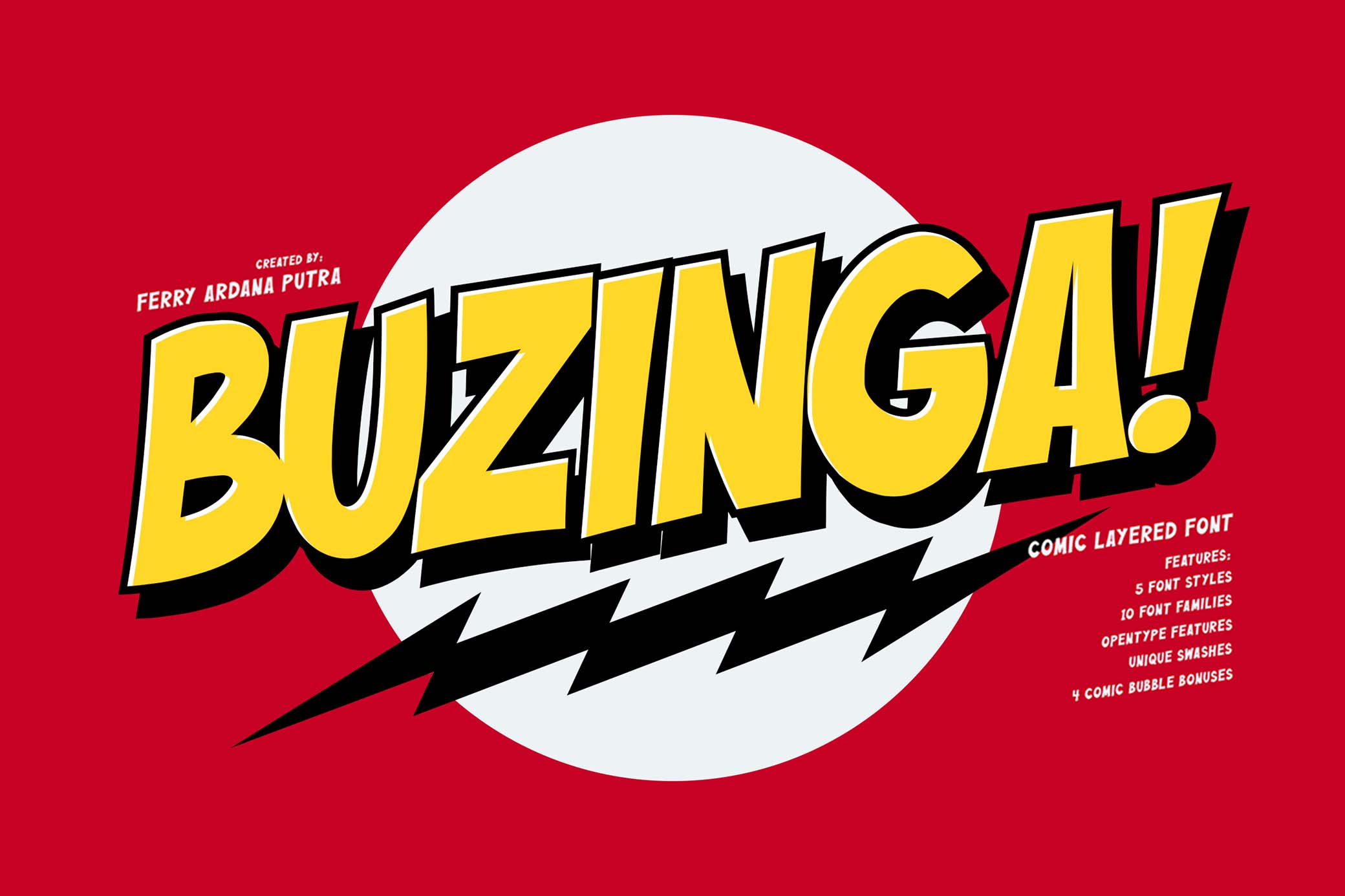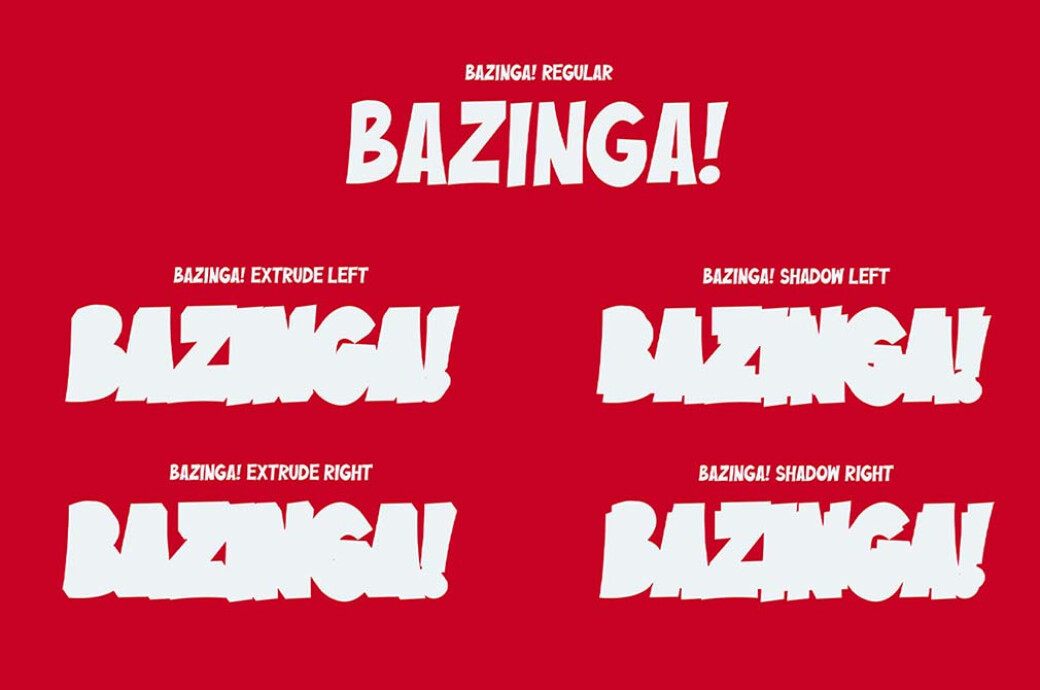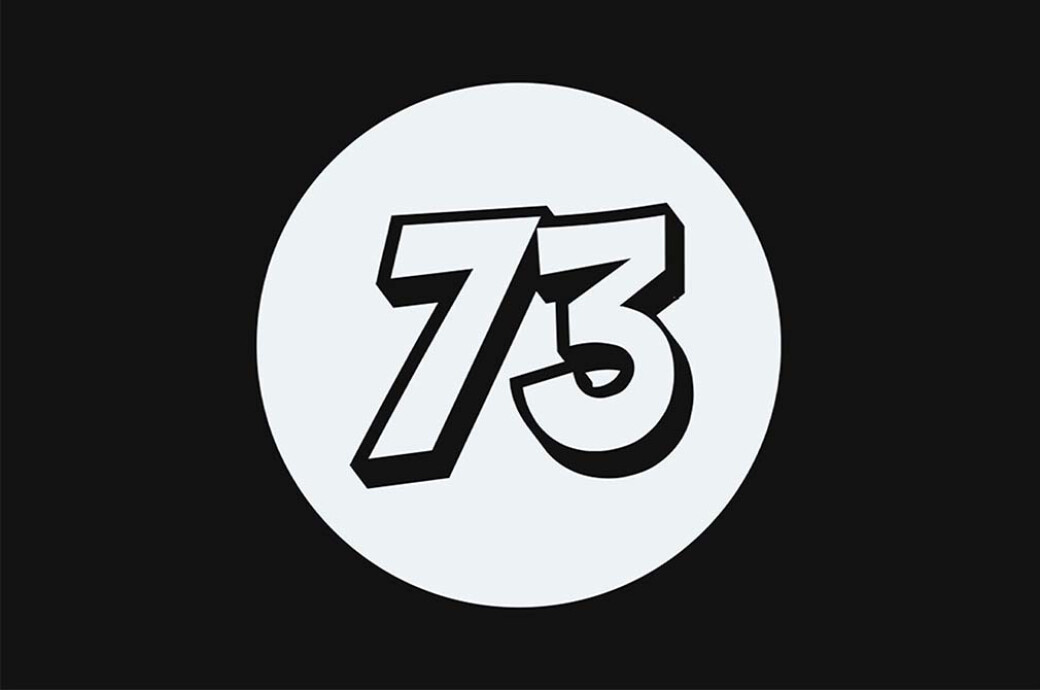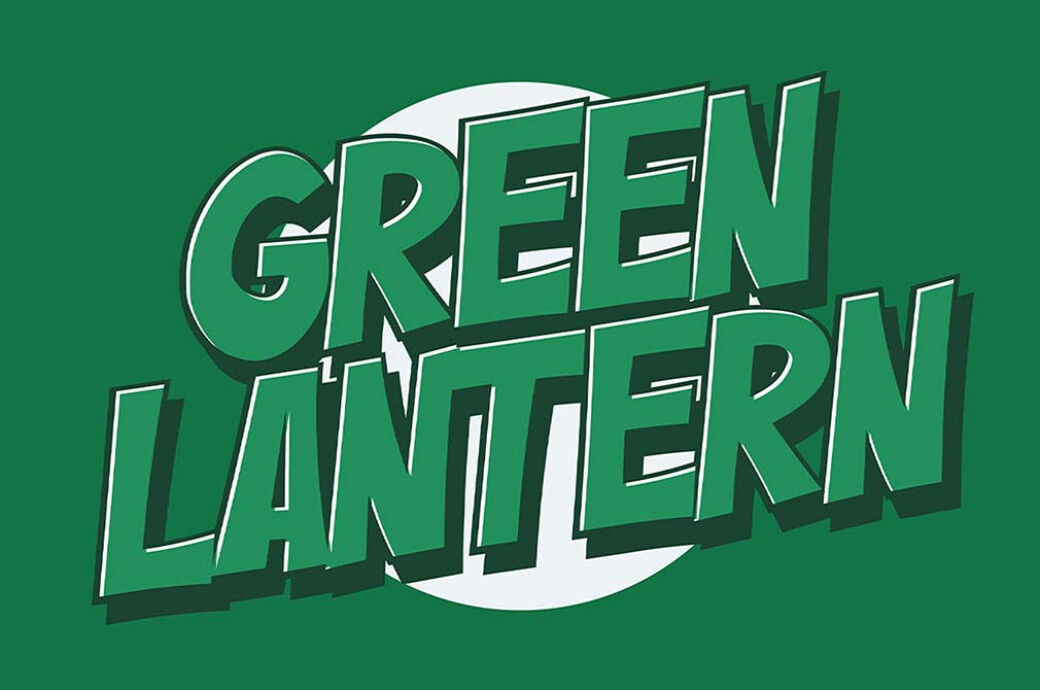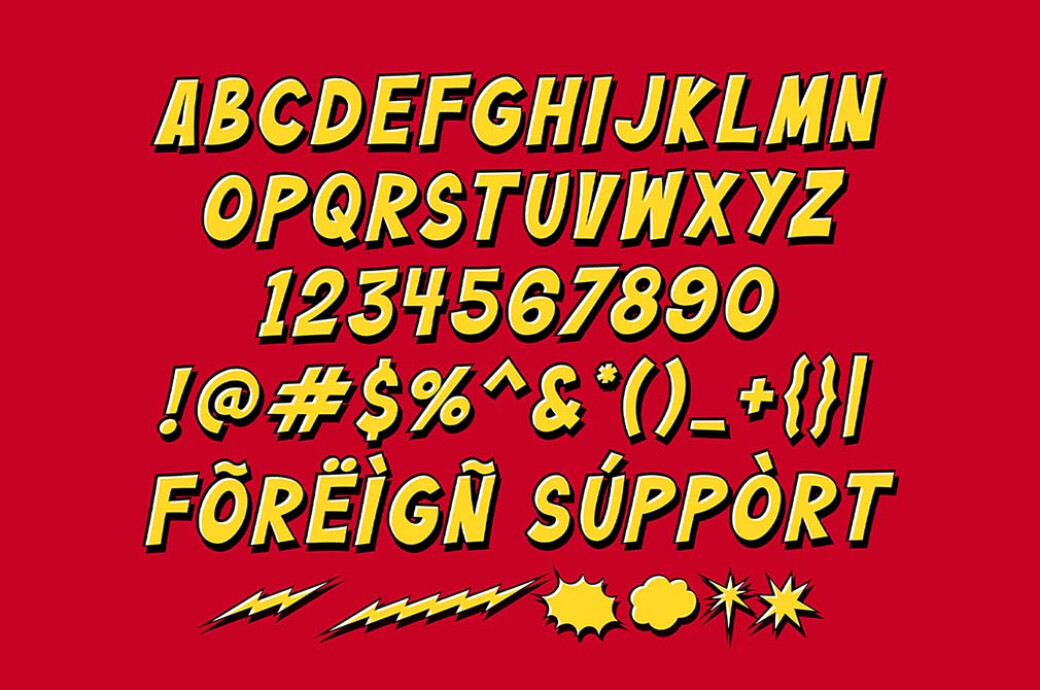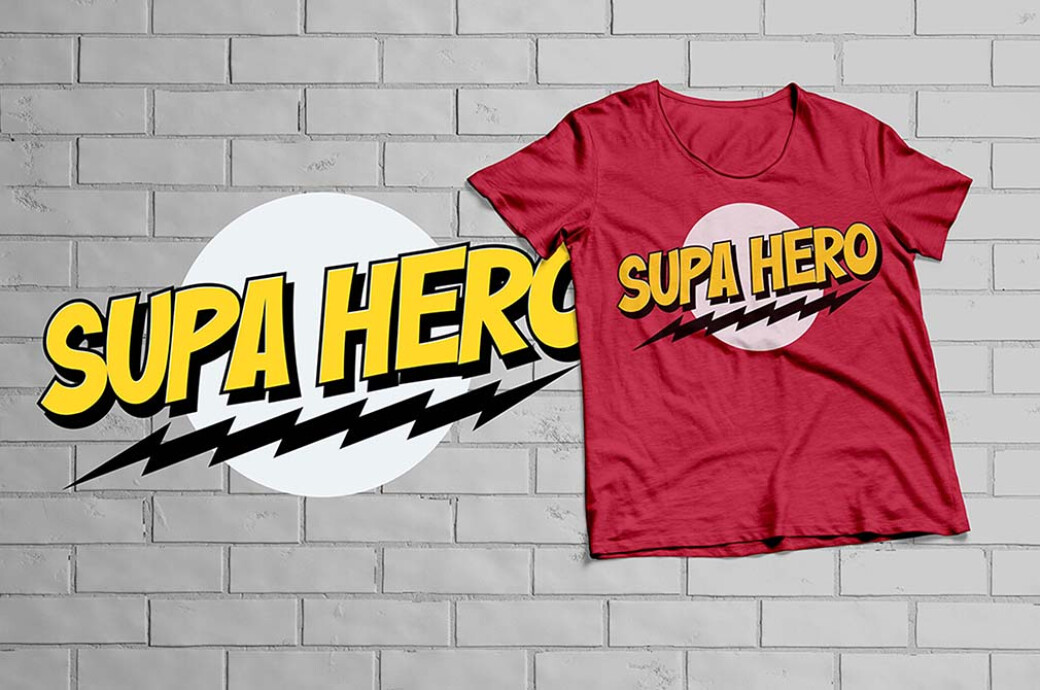
Buzinga! — Comic Layered Font
A fan of the Big Bang Theory? Then you can leave without Buzinga, a comic type inspired by Sheldon's favorite catchphrase for jokes!Buzinga is a layered comic-style font featuring 5 styles, plus a pack of comic bubbles in EPS format. A complete set of characters, including international language support, is foreseen for each font style. The font is perfect for adding a comical feel to your designs, weather quotes, tee prints, labels, logos, posters, merchandise, and many more!